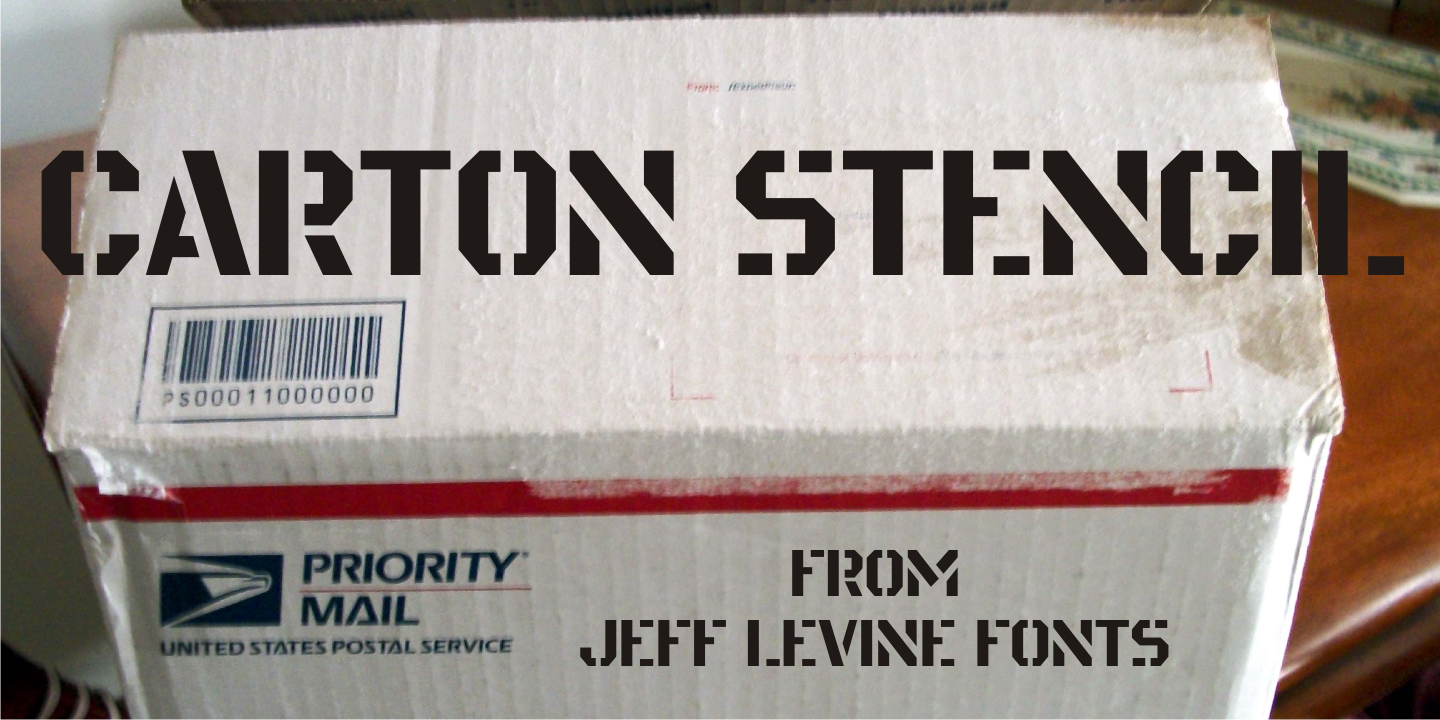
The Carton Stencil JNL Font Free Download is an incredibly authentic and utilitarian typeface, making it an excellent choice for designs that aim to convey an industrial feel, a sense of practicality, and a classic, no-nonsense aesthetic. This robust font is perfectly suited for packaging design (especially for shipping or industrial goods), military-themed graphics, warehouse signage, vintage advertisement reproductions, rugged outdoor branding, and DIY craft projects. Imagine it boldly stenciled on a wooden crate, providing clear and concise labeling for heavy machinery, or giving an authentic, unembellished look to a vintage factory sign. Its broken forms and straightforward readability ensure your message is delivered with precision and an undeniable sense of raw functionality.
What makes Carton Stencil JNL Font truly exciting is its ability to instantly evoke the efficiency and no-frills aesthetic of industrial marking. It's not just a stencil font; it embodies a raw, utilitarian honesty and a distinct, functional character that makes it incredibly compelling. The intentional breaks in the letterforms, mimicking real-world stencil application, give it an authentic, work-worn feel, as if directly from a shipping container. Designers will appreciate how it immediately adds a rugged, unpretentious quality to any project, making it ideal for designs that need to convey information clearly, succinctly, and with a timeless, authoritative tone.
The Carton Stencil JNL Font family typically focuses on its singular, impactful style, as its strength lies in its inherent stencil and utilitarian aesthetic. While you might primarily find a Regular option, its power comes from its unique visual effect rather than a broad range of weights. Some versions might offer slightly varied weights or distressed alternatives to enhance its authentic, aged appearance. These focused design choices ensure that the Carton Stencil JNL Font Free Download provides ample creative opportunities to craft truly authentic, clear, and visually striking designs that resonate with a sense of industrial history and straightforward purpose.